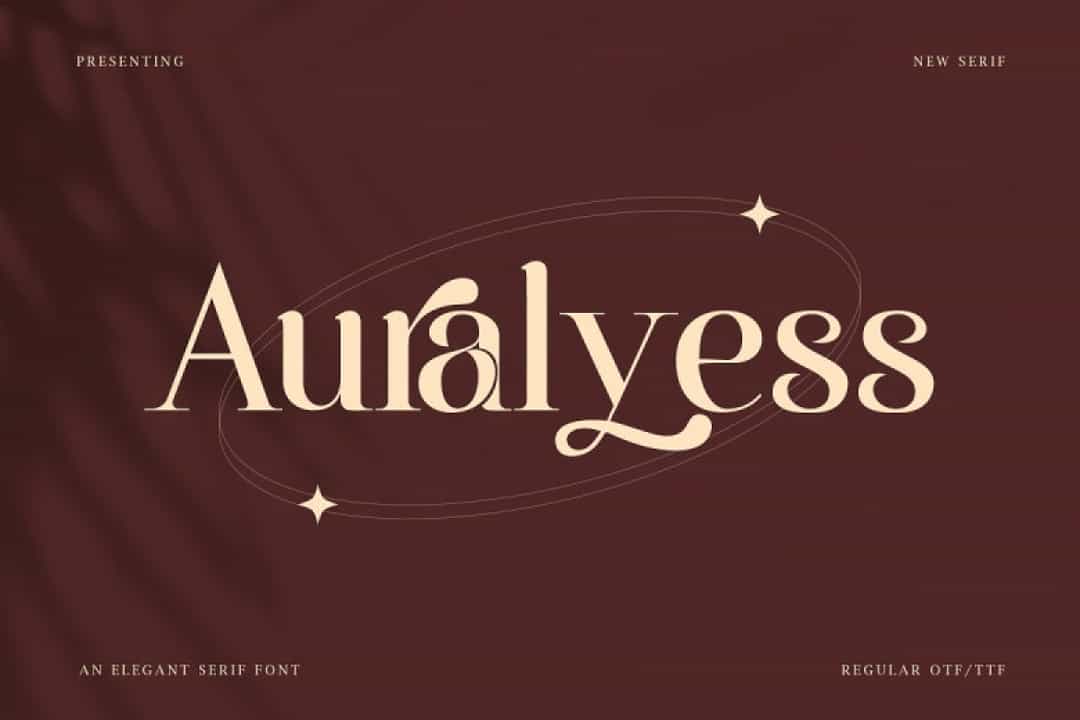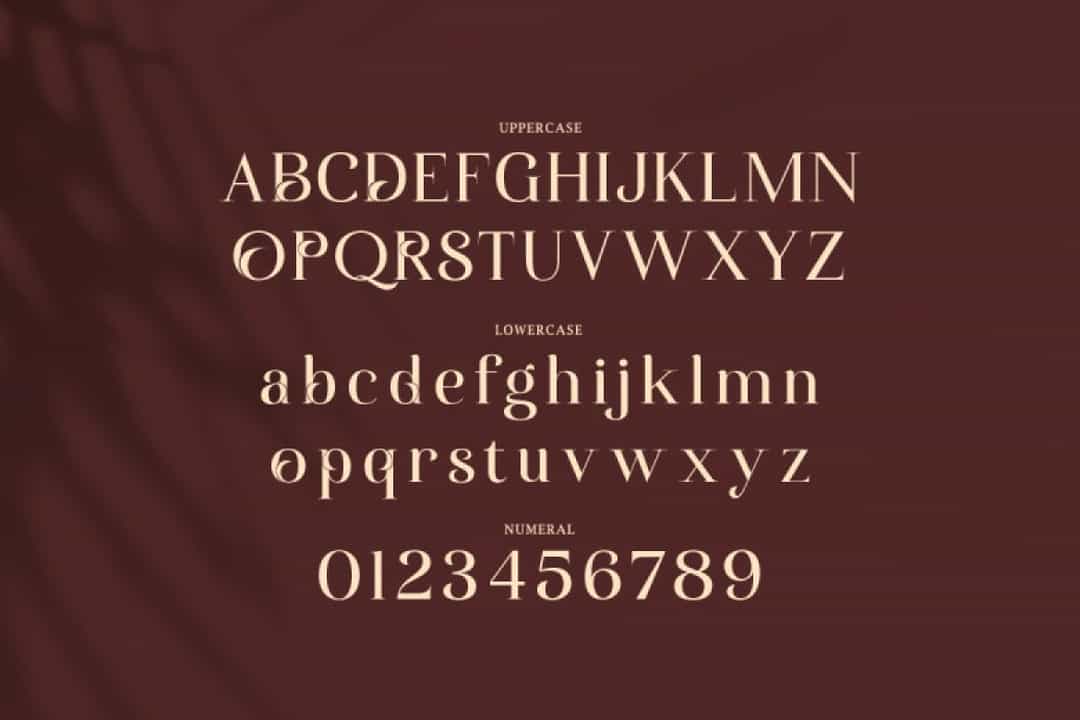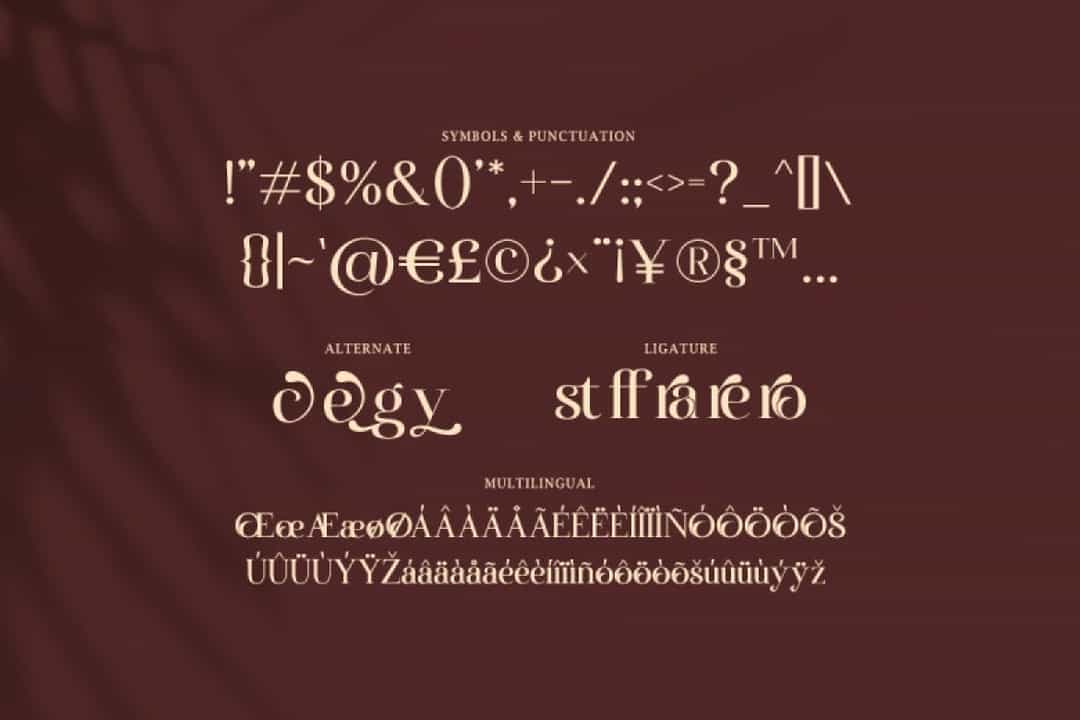
Auralyess can be best described as an elegant serif font combining classic influences with modern design. Beautifully created and easily implemented into various projects. Use Auralyess font for its elegant yet subtle appearance and maximum design flexibility.